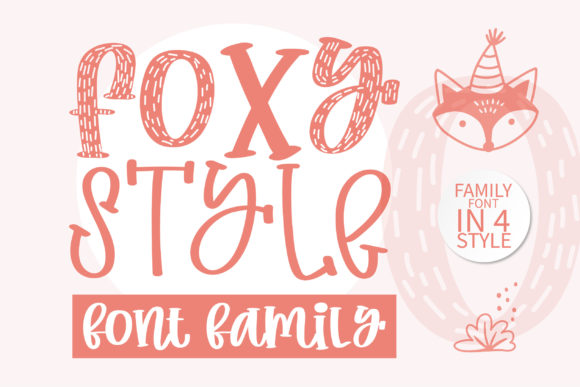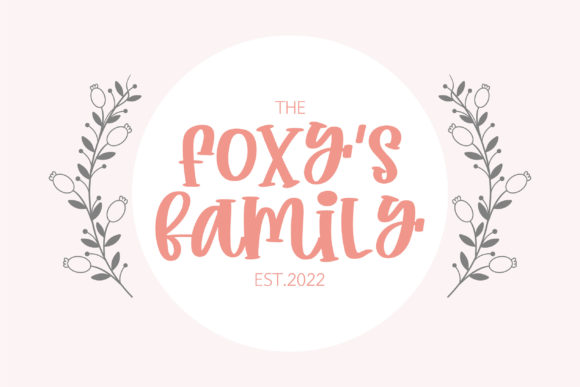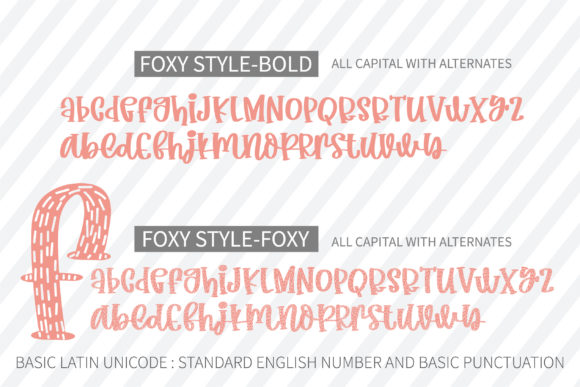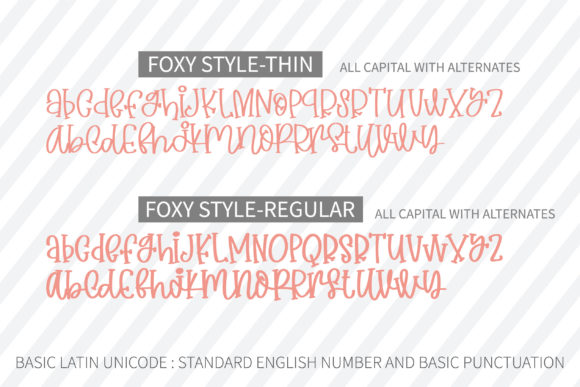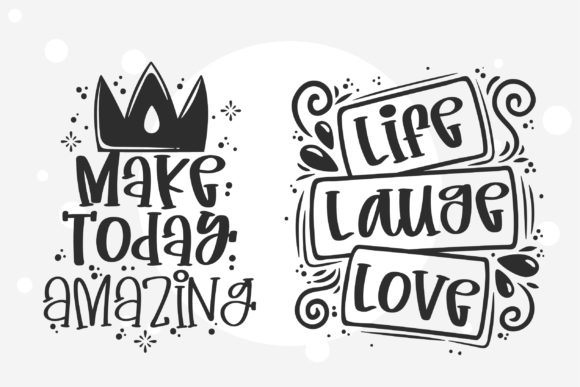
About Foxy Style Font
Foxy Style is an all capital handwritten font. Its natural and unique style makes it incredibly fitting for a Valentine’s card or craft. Add it to your most creative ideas, and notice how it makes them come alive!